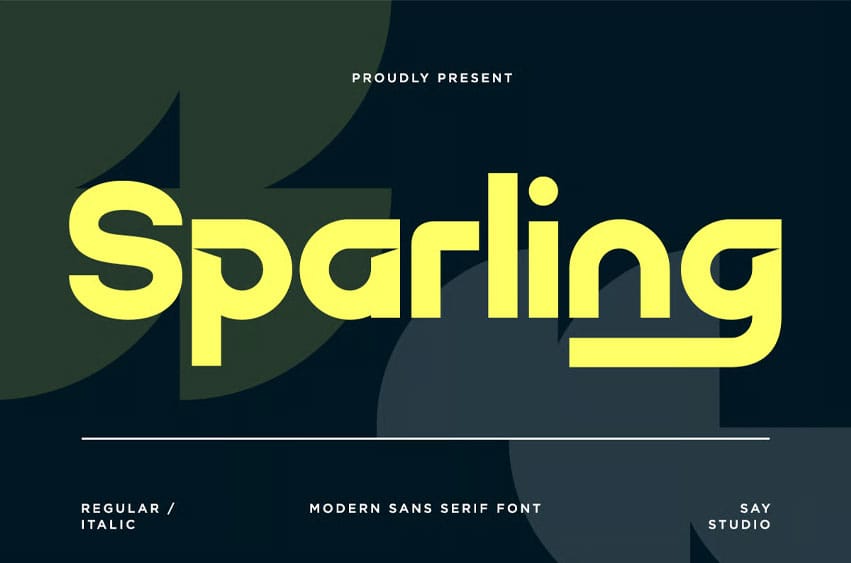
Sparling Font is a unique, minimal, and modern display typeface that stands in a class of its own.
Designed specifically for display and branding purposes, this typeface is an excellent choice for creating logotypes, brand identities, headlines, digital advertisements, marketing materials for web and print, and any form of minimal design.